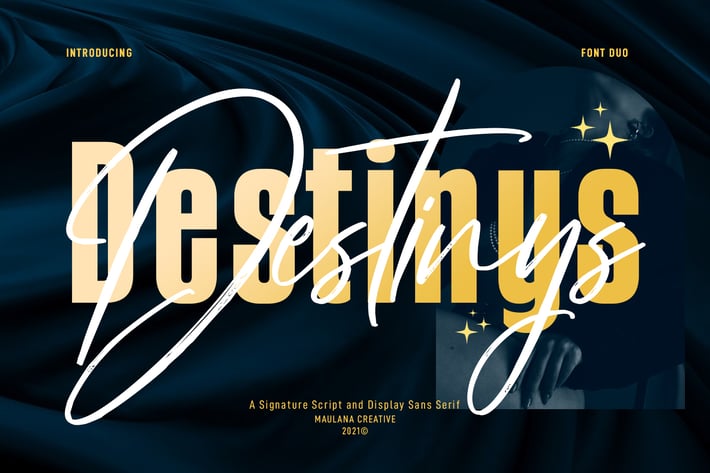
Destinys Font Signature Script Display Sans Serif
Destinys Script and Sans Font Duo is a modern script and display sans font. With regular marker stroke and bold sans stroke, fun character with some of ligatures. To give you an extra creative work. Destinys Script and Sans font support multilingual more than 100+ language. This font is good for logo design, Social media, Movie Titles, Books Titles, a short text even a long text. Make a stunning work with Destinys Script and Sans font.